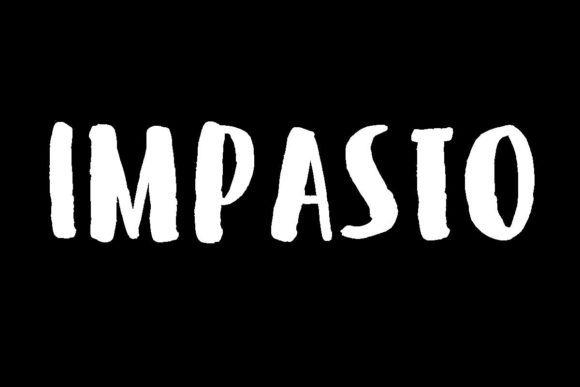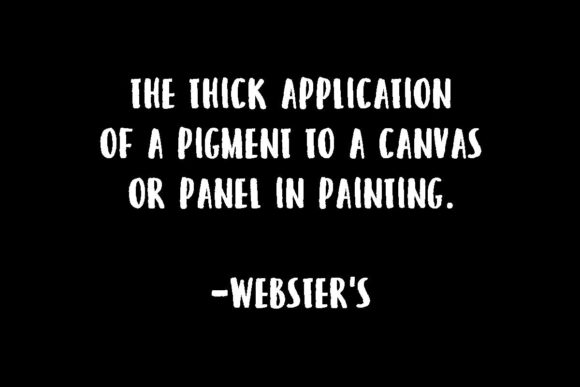
Impasto Font
About Impasto Font
Impasto is a bold and simple script font. Add this chunky lettered font to your designs and notice how it makes them come alive!